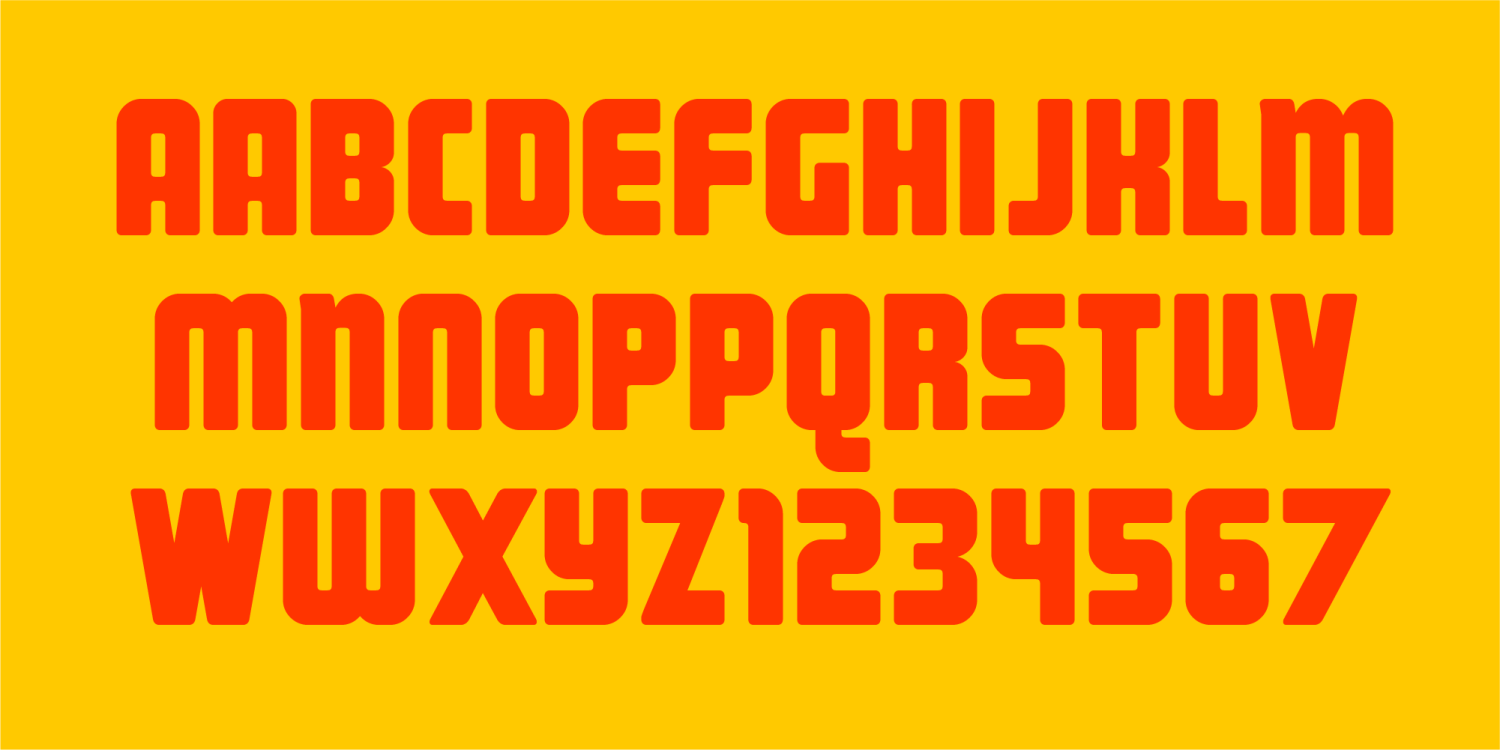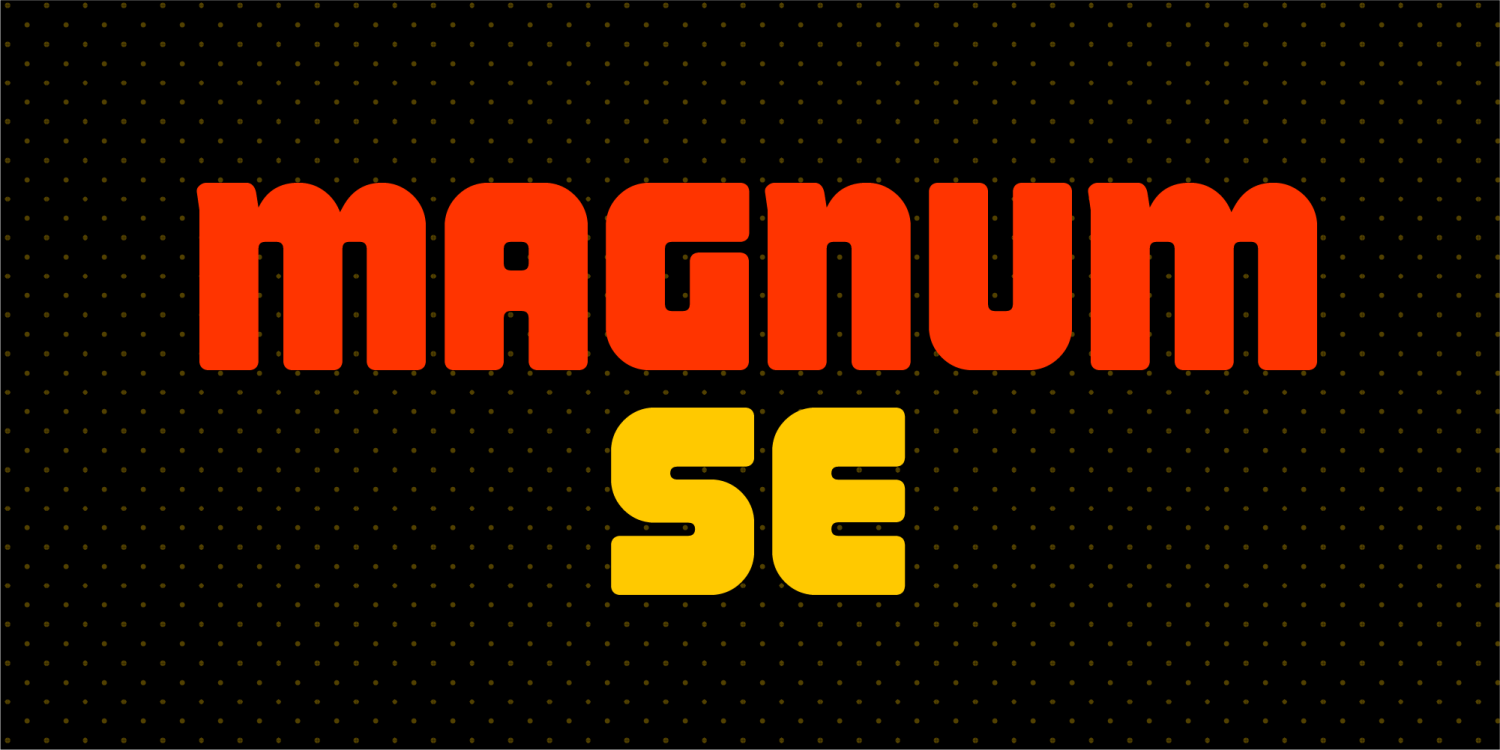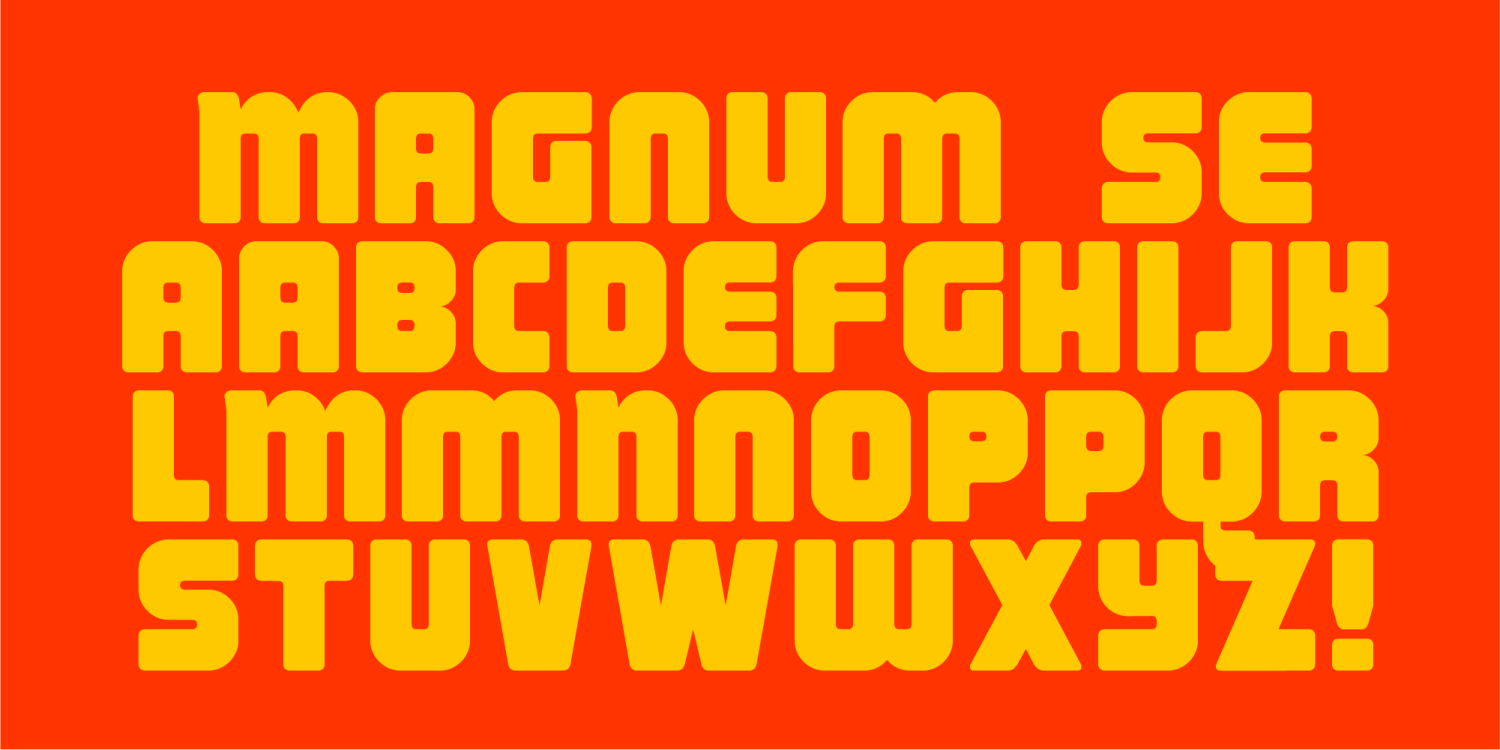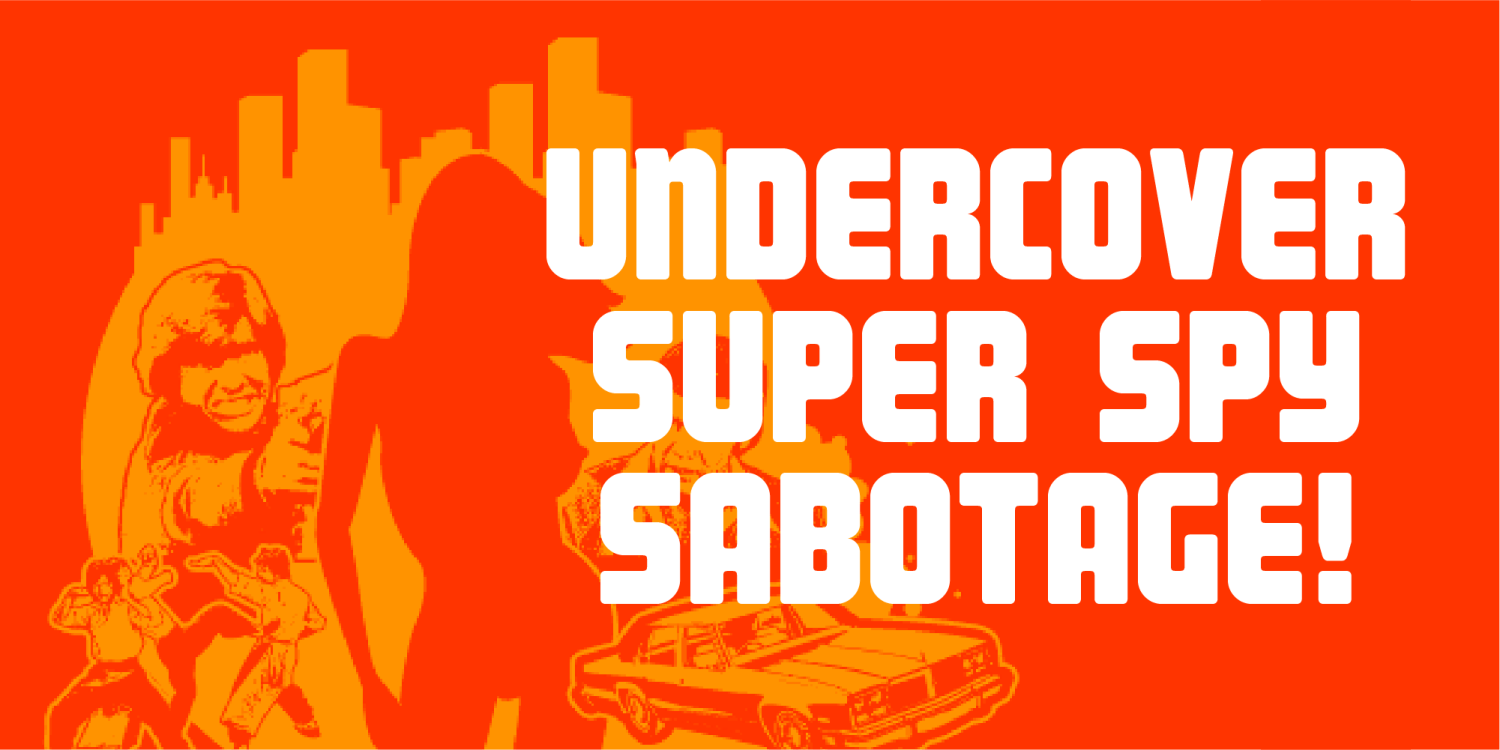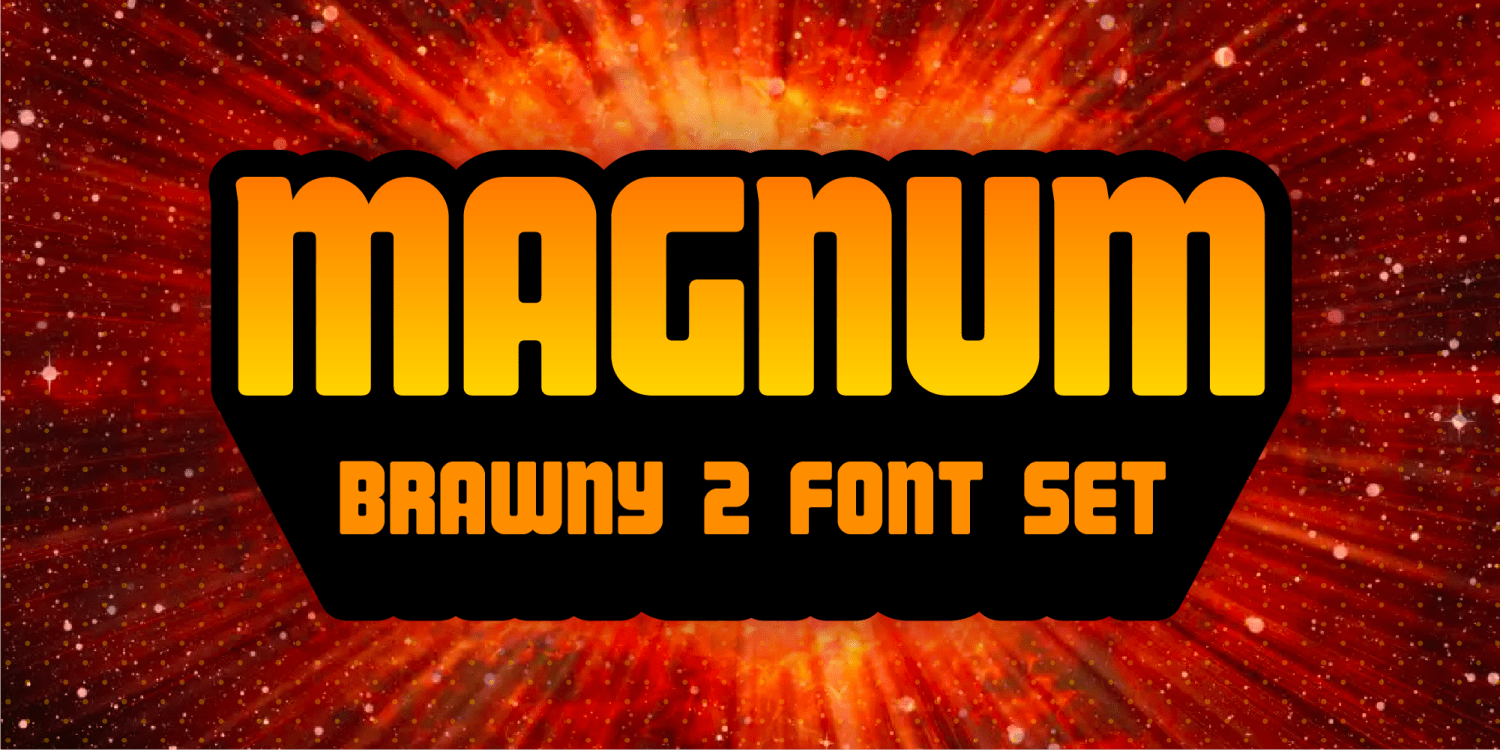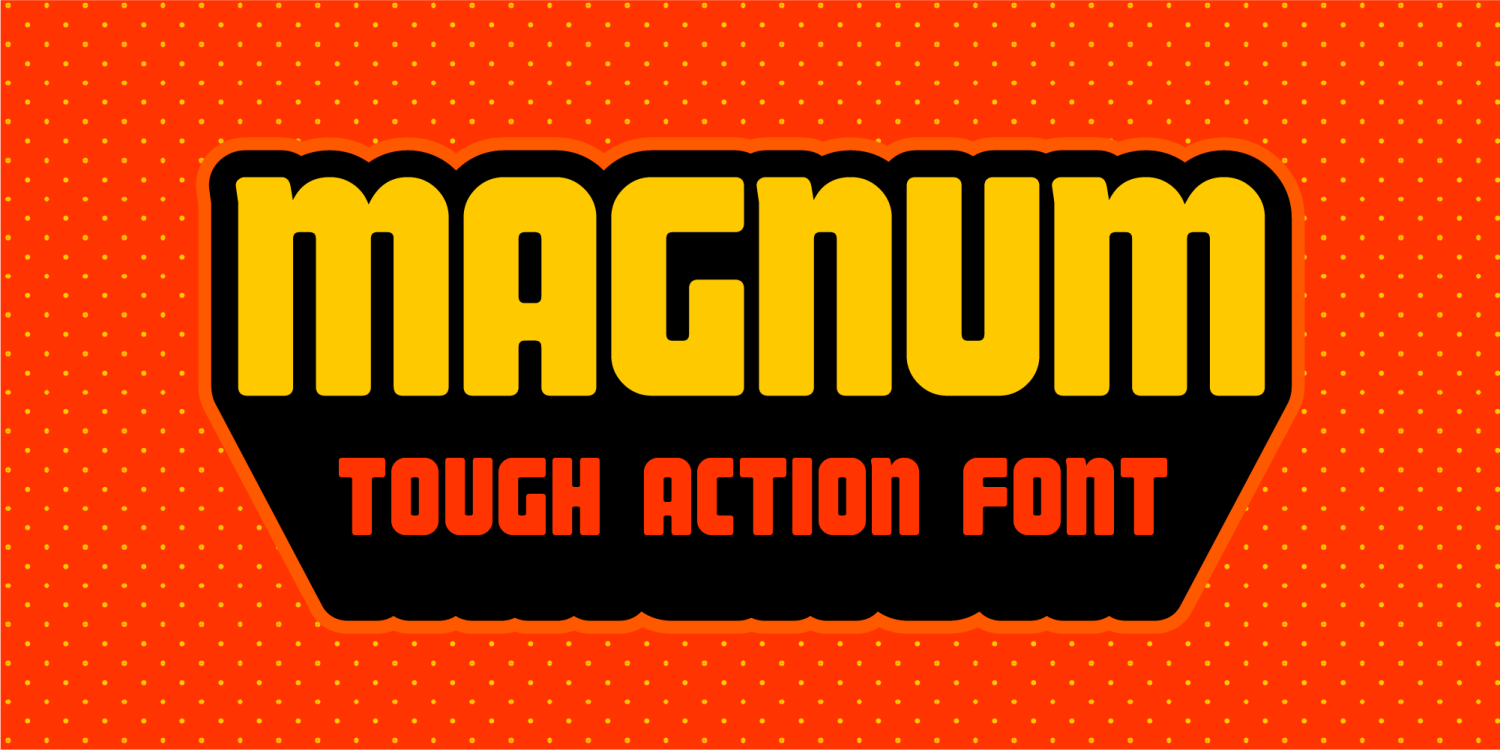
Magnum
About Magnum
Magnum is such a tough word. Whether you are talking about a mustached private investigator, a powerful handgun or a durable latex condom, you use this word in a sentence and chances are the conversation is going to be a manly one. Choosing the name of…